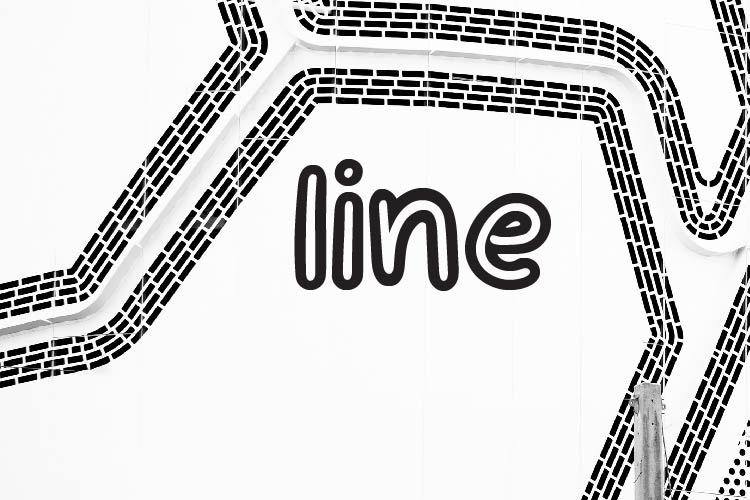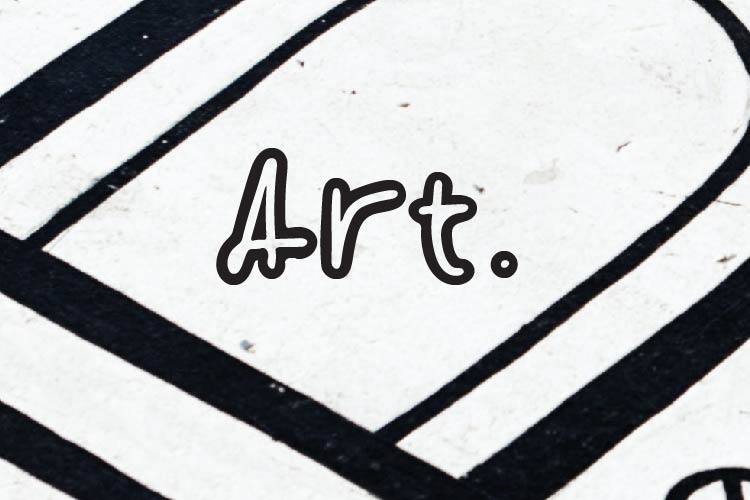
Doodle Font
Doodle Display Font
This is a cool and friendly display font. It can easily be matched to an incredibly large set of projects, so add it to your creative ideas and notice how it makes them stand out!